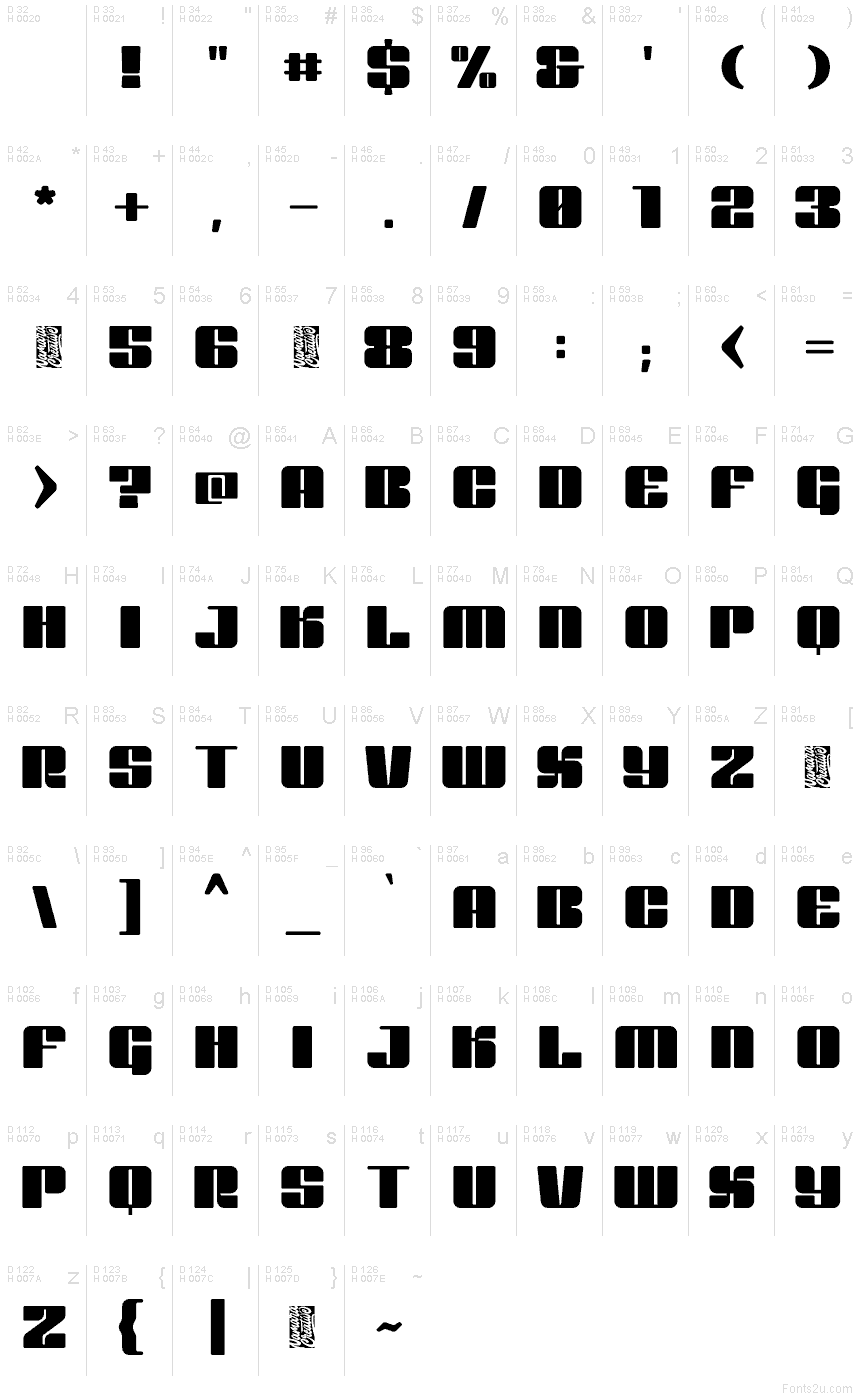
Decabrio Display
Decabrio Display font by Namara Creative is a free bold retro display font. Built within the Decabrio family, it stands out with chunky, block‑like stems that melt into soft inner rounds and carved notch details, giving each letter a crisp yet cushioned feel. The spacing is tight and rhythmic, so words lock up like tiles—big, black, and confident without feeling stiff.
Using Decabrio Display, headlines hit hard and read fast, making it a natural fit for logos, posters, packaging, event titles, badges, and social graphics. This free font shines on large canvases where its scooped corners and geometric heft can breathe; add a touch of tracking for extra swagger. Pair it with a light, neutral sans to let the bold forms take center stage.